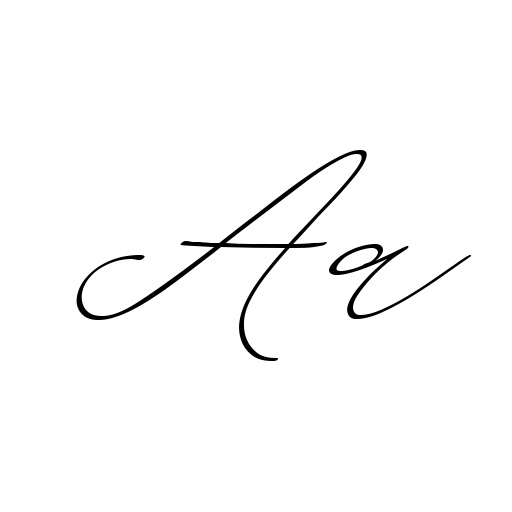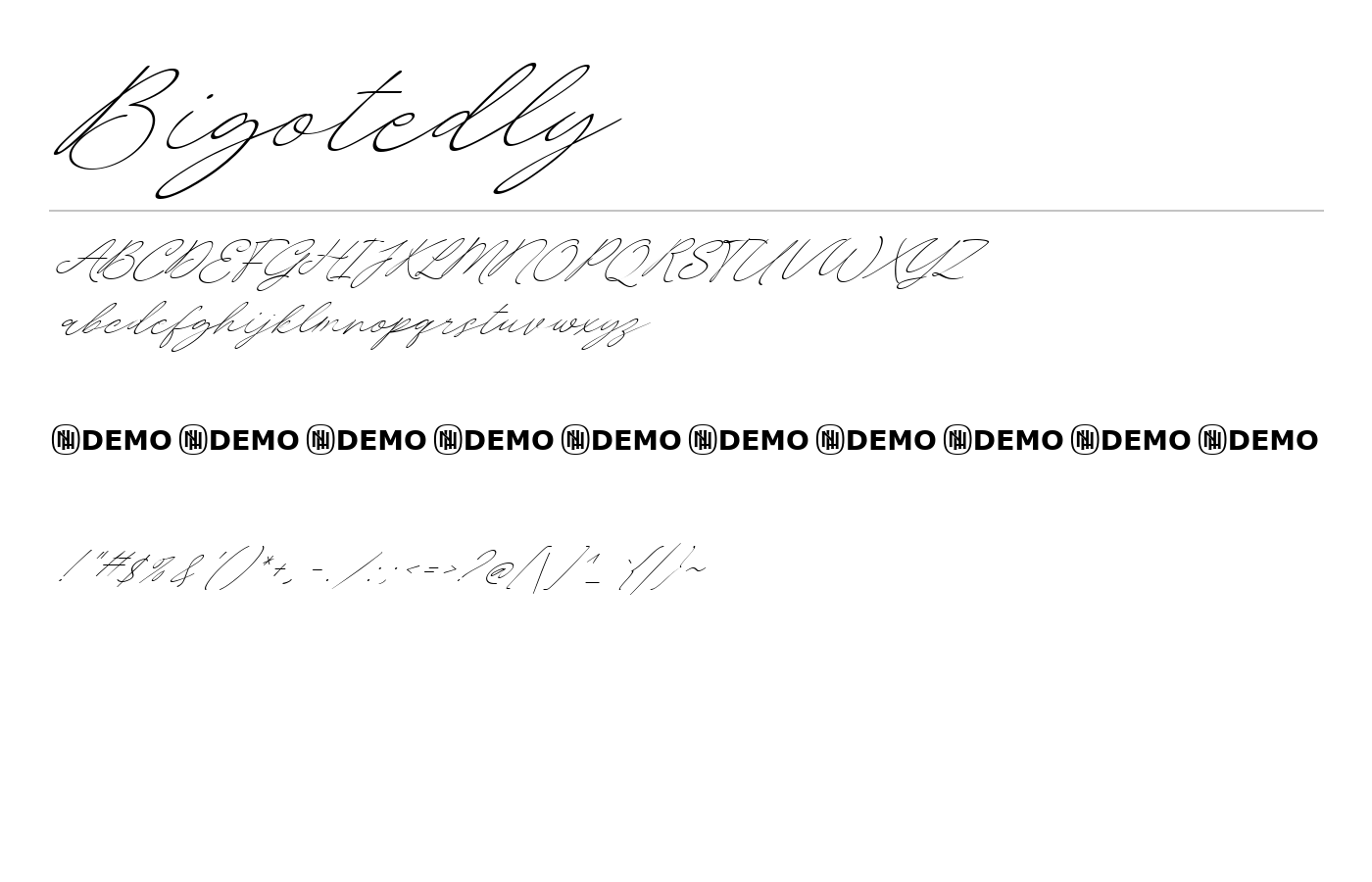
Bigotedly is a delicate, elegant script font that features fine, flowing strokes with a high x-height, giving it a graceful, handwritten appearance. Its thin lines and refined curves create a sophisticated and stylish mood, making it ideal for invitations, branding, and editorial projects where a personal, upscale touch is desired. This font works best in large sizes for headings or logos to highlight its artistic details without sacrificing readability.
Bigotedly Font
About Bigotedly Font